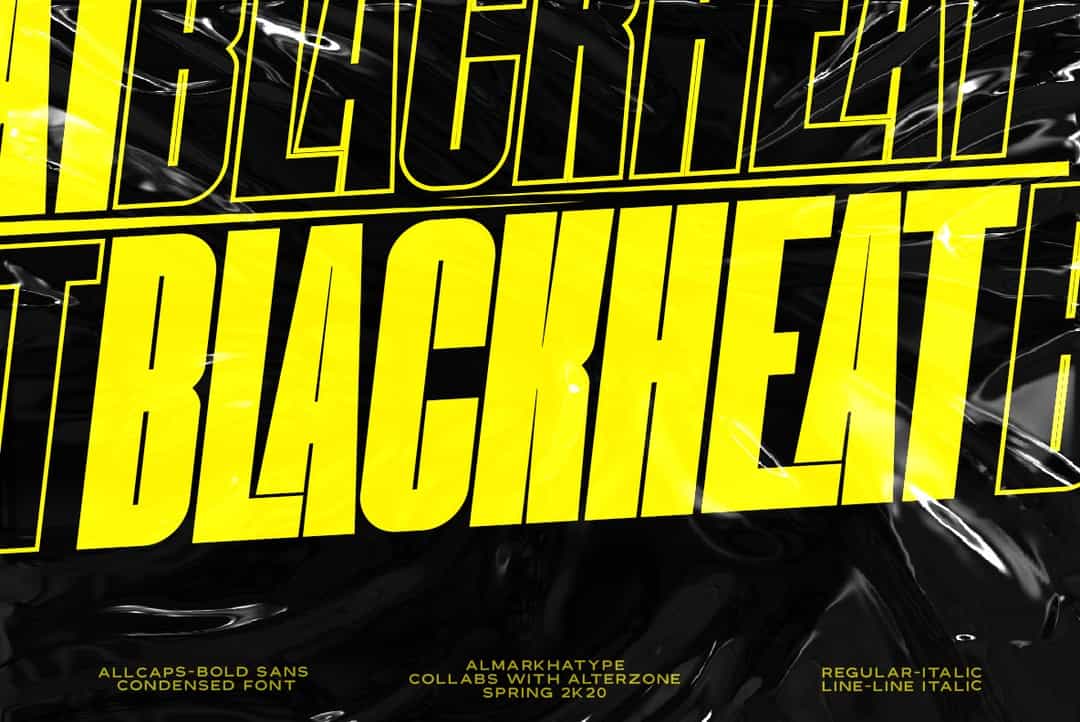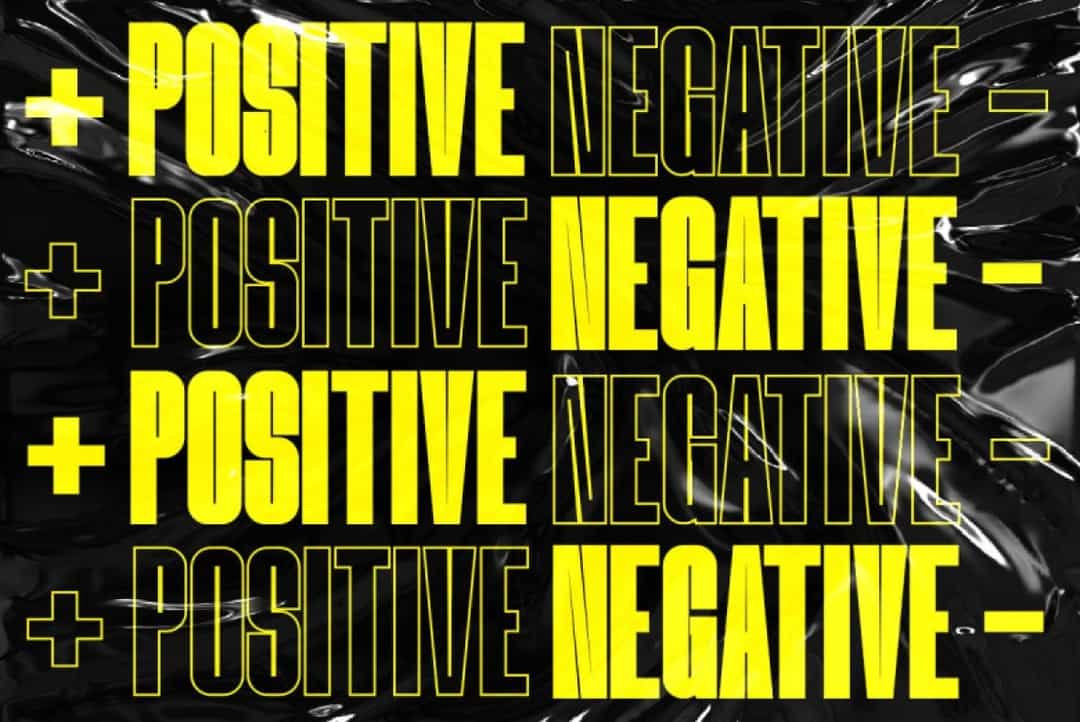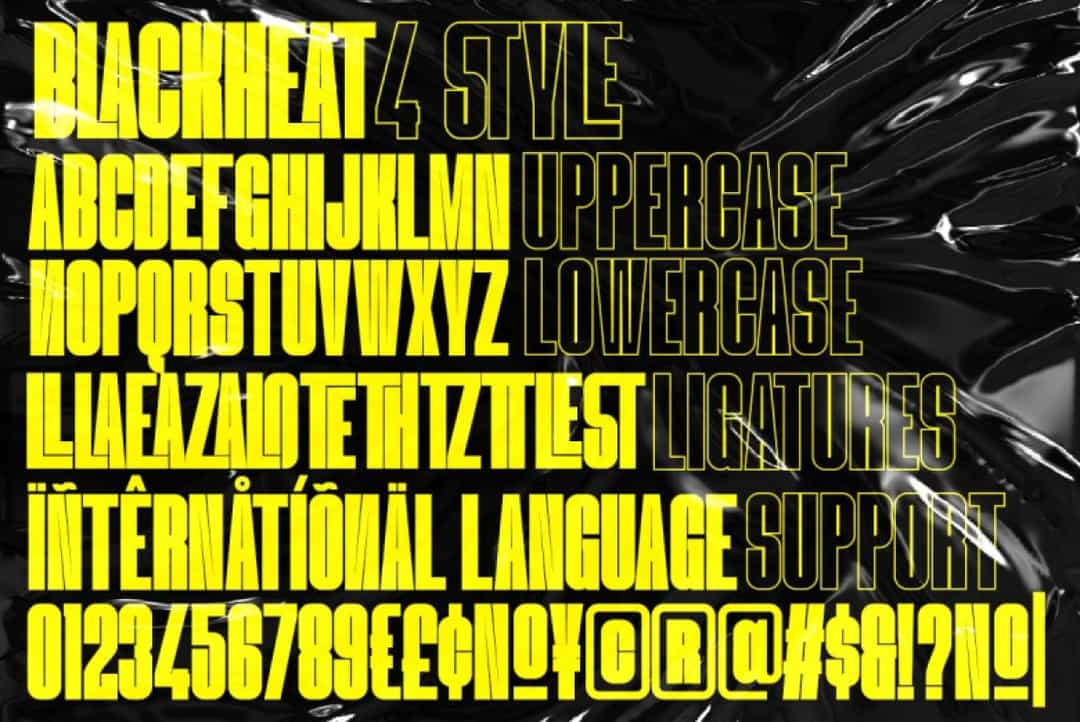
Blackheat bold Sans Condensed using 4 styles that is inspired by the name of the poster for sports. We design it extremely energetically considering the density and thickness of each gliph. It is also paired with a ligature, which creates a unique font style.